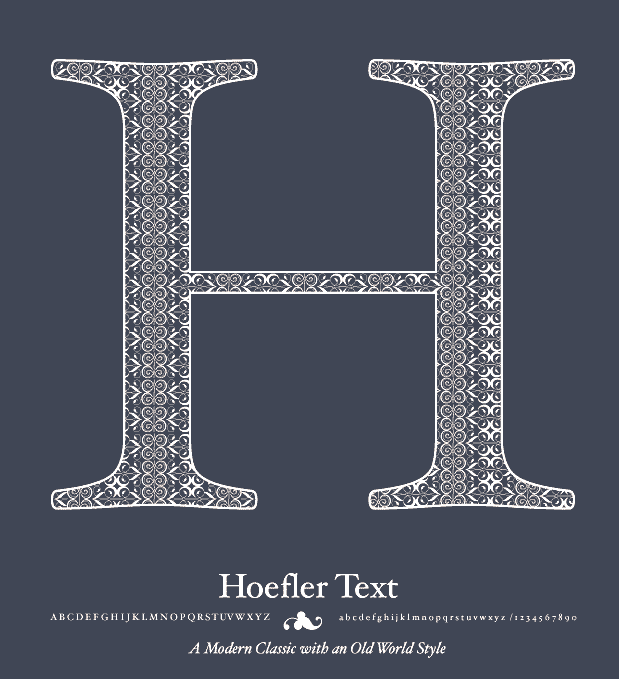
Type Worship is the official blog of 8 Faces magazine. Featuring inspirational typography, beautiful lettering, reviews, interviews with leading designers, and exclusive content from the coveted bi-annual publication. Curated by Jamie Clarke (London) with Elliot Jay Stocks. Over four years and across eight issues they interviewed 64 world-renowned designers and asked them for their favorite fonts. These designers were Erik Spiekermann, Jessica Hische, Ian Coyle, Jason Santa Maria, Jos Buivenga, Jon Tan, Bruce Willen, Nolen Strals, Martin Majoor, Ale Paul, Stephen Coles, Tim Brown, Nick Sherman, Rich Rutter, Veronika Burian, José Scaglione, Ellen Lupton, Frank Chimero, Steve Matteson, Mark Caneso, Vincent Connare, Yves Peters, Jason Smith, Phil Garnham, John Boardley, Craig Mod, Kris Sowersby, Doug Wilson, Nadine Chahine, David Brezina, Silas Dilworth, Neil Summerour, Jonathan Hoefler, Tobias Frere-Jones, Mark Simonson, Trent Walton, Keetra Dean Dixon, Peter Bilak, Gerry Leonidas, Mark MacKay, Simon Walker, Dan Rhatigan, Seb Lester, Nina Stössinger, Grant Hutchinson, Mike Kus, Eric Olson, Nicole Dotin, Michael Bierut, Tomas Brousil, Georg Salden, Hannes von Döhren, Phil Baines, Ken Barber, Rudy VanderLans, Zuzana Licko, Elliot Jay Stocks, Jeremy Leslie, Jan Middendorp, Robert Slimbach, Steven Heller, Fiona Ross, Erica Jung and Ricardo Marcin. The top 25 fonts coming out of this poll are, in order [with quotes and discussion taken from Jamie Clarke's piece]: - Georgia. Matthew Carter, 1993. Originally designed for clarity on low resolution screens, for Microsoft, it is the counterpart to Verdana, which also appears in this list. Georgia has a large x-height and ascenders that rise above the cap height. It's a sturdy yet friendly typeface, with a wonderful flowing italic, that features on millions of websites.
- Gotham. Tobias Frere-Jones, 2000. Famously used for Barack Obama’s 2008 presidential campaign.
- FF Scala. Martin Majoor, 1990. FontShop International’s ‘first serious text face’.
- Futura. Paul Renner, 1927. This immortal ‘modern’ typeface with its uncompromising shapes has become the benchmark geometric sans for almost 80 years.
- Gill Sans. Eric Gill, 1926. A quintessential British design; though it’s eccentricities make it notoriously tricky to use well. A blend of humanist and geometric shapes.
- Garamond. (Claude Garamond, c. 1480–1561), Several derivatives of the Parisian punch cutter’s design have been chosen, including; ITC Garamond (Tony Stan), Adobe Garamond & Garamond Premier (Robert Slimbach).
- Caslon (Adobe Caslon). (William Caslon I, 1722) Carol Twombly, 1990. Gave rise to a printer’s saying ‘When in doubt, use Caslon’. Also a favourite of Benjamin Franklin.
- Akzidenz Grotesk. H. Berthold, Berthold Type Foundry, 1898. The first widely used sans serif typeface.
- Alternate Gothic. Morris Fuller Benton, 1903. Designed for the American Typefounders Company (ATF). All three weights are bold and narrow. Currently used on YouTube’s homepage logo.
- Helvetica. Max Miedinger with Eduard Hoffmann, 1957. Helvetica needs no introduction as the planet’s most famous typeface—it even inspired a very good film.
- Metro. William Addison Dwiggins, 1930. Designed out of a dissatisfaction with the san serifs of the time like Futura.
- ITC Franklin Gothic. Morris Fuller Benton, 1902. Created for the American Type Founders Company and named after Benjamin Franklin.
- Meta Serif. Erik Spiekermann, Christian Schwartz and Kris Sowersby, 2007. The serif companion to Eric Spiekermann’s influential sans serif, FF Meta. Also designed to work well with FF Unit and FF Unit Slab.
- Trade Gothic. Jackson Burke, 1948/1960.
- Adelle. José Scaglione and Veronika Burian, 2009. Adelle is a slab serif typeface conceived for intensive editorial use, mainly in newspapers and magazines but its personality and flexibility make it very adaptable.
- Caecilia. Peter Matthias Noordzij, 1990. A humanist rather than geometric slab serif, aiding its legibility.
- Chaparral. Carol Twombly, 2000. A
- DIN. Albert-Jan Pool, 1995. This clean geometric sans is based on the German standard typeface, DIN 1451, used for official documents and street signs etc. DIN stands for Deutsches Institut für Normung (German Institute of Standardisation). The font was added to the MoMA Design Collection in 2011.
- Hoefler Text. Jonathan Hoefler, 1991. Designed for Apple to demonstrate advanced type technologies it reintroduced type design traditions once central to fine printing like ligature sets, engraved capitals, ornaments and arabesques.
- Quadraat. Fred Smeijers, 1992. An original typeface Combining Renaissance elegance with contemporary ideas on construction and form. Named after Smeijers’ design studio in Arnhem, of the same name.
- Sabon. Jan Tschichold, 1964. An oldstyle serif typeface based on Garamond. A distinguishing feature of Sabon is the same width occupied by characters in the Roman and Italic styles, and the Regular and Bold weights.
- Sentinel. Jonathan Hoefler & Tobias Frere-Jones, 2009.
- Verdana. Matthew Carter, 1996. It was created specifically to address the challenges of on-screen display. Verdana’s large x-height, wide proportions, generous letter-spacing and large counters are key to its legibility at small sizes.
- Fedra Serif. Peter Bilak, 2003. A highly original text typeface. Shaped by a unique blend of technological considerations while maintaining hand-written forms.
- Feijoa. Kris Sowersby, 2007. Aiming to create a feeling of softness, Feijoa has an almost complete absence of straight lines. Feijoa successfully avoids the sense of coldness that Kris had felt with some previous digital typefaces.
- Officina. Erik Spiekermann, 1990. A paired family of serif and sans serif faces, originally designed as a typeface for business correspondence but found a much wider, trendier audience.